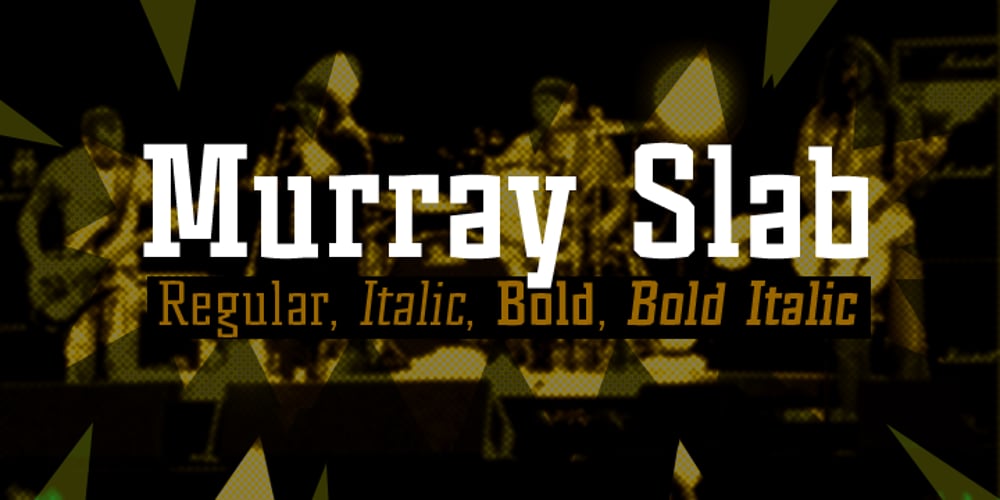
Murray Slab Font Family was designed by published by Tkachev. Murray Slab contains 4 styles and family package options. Murray Slab is a techno-style typeface with four styles. This font family will be the best solution for posters, signage, magazine, product branding, corporate branding, logos and titles.